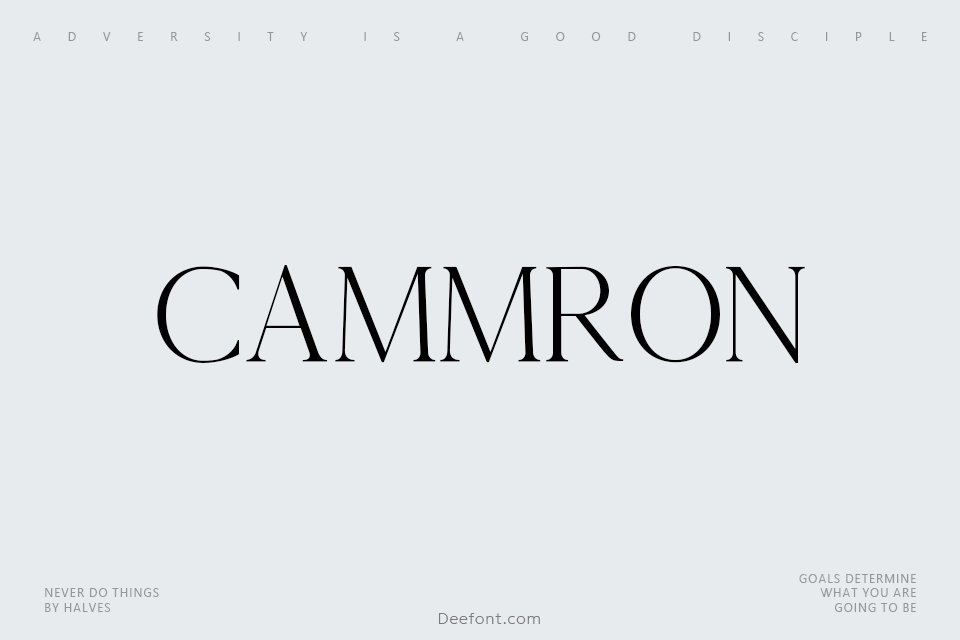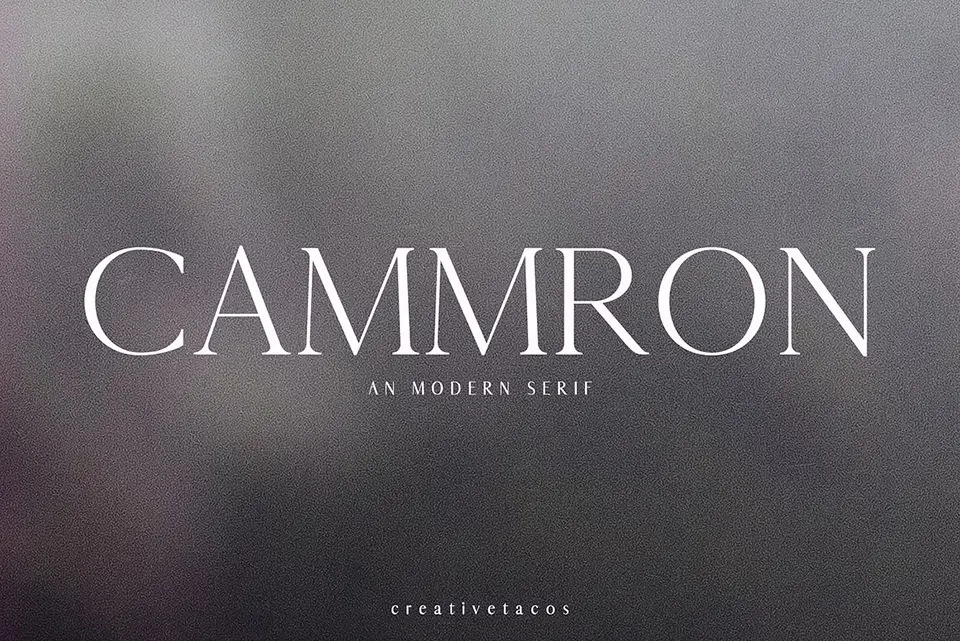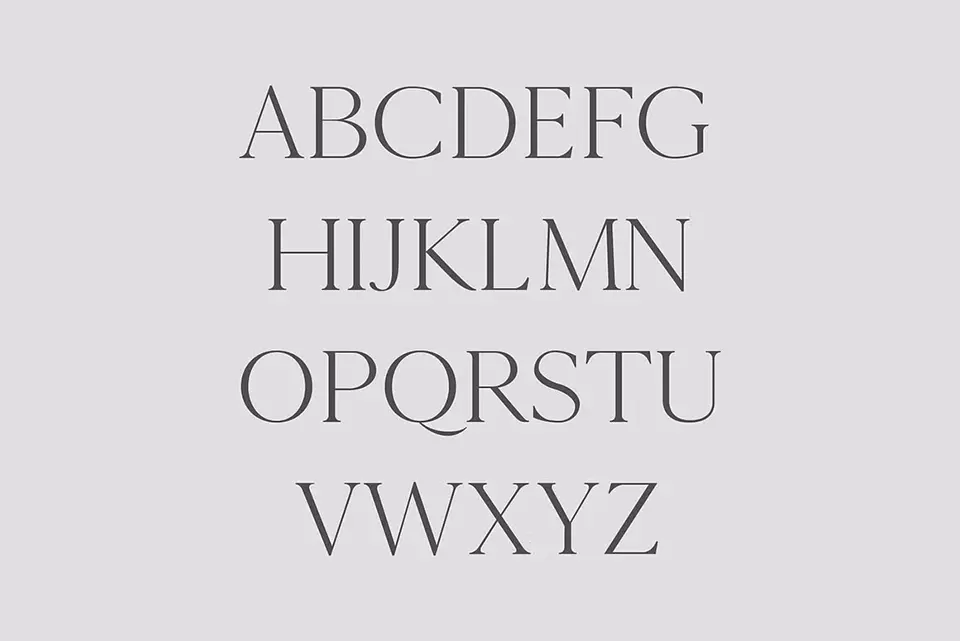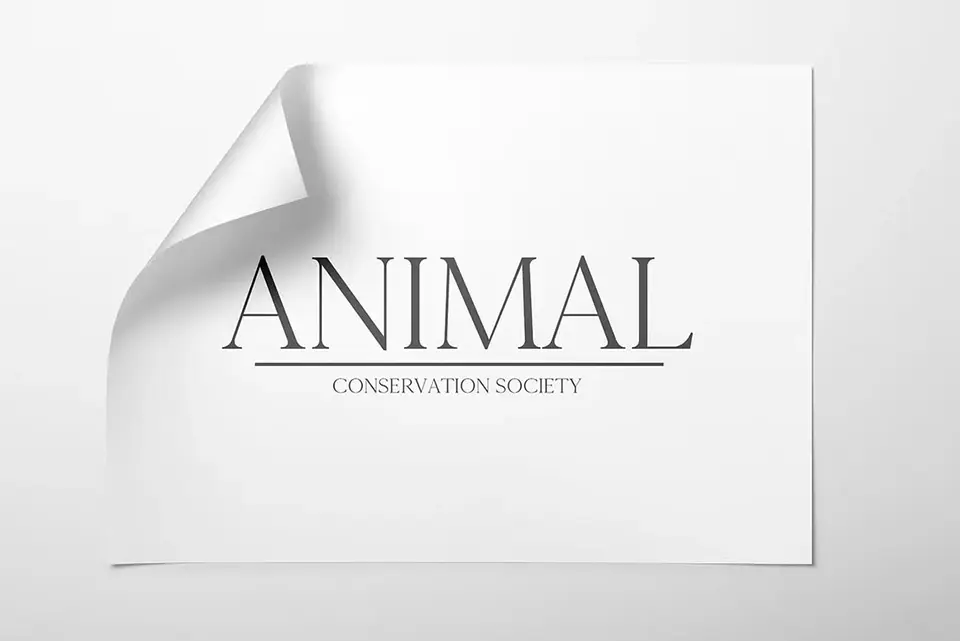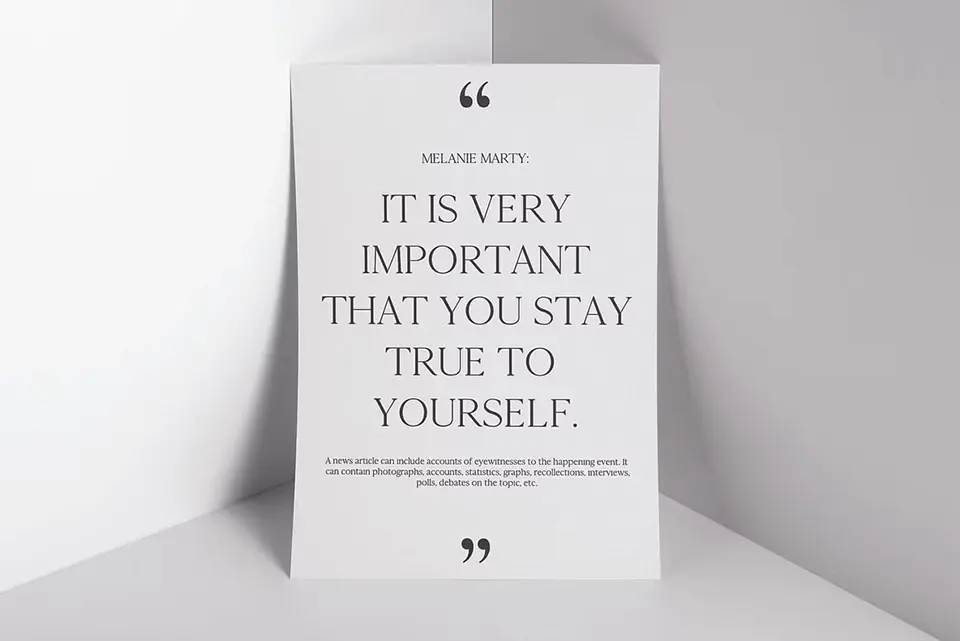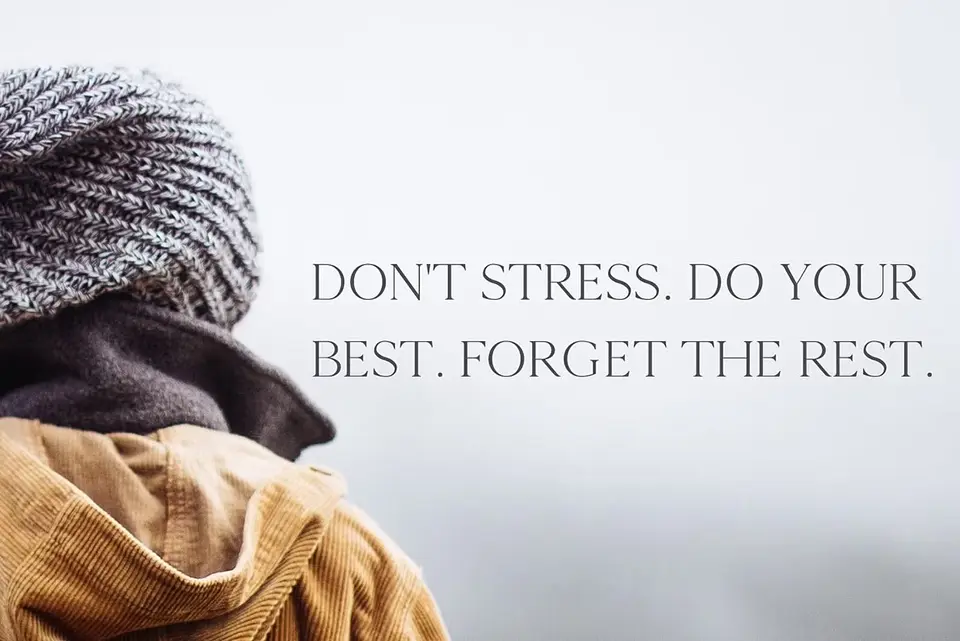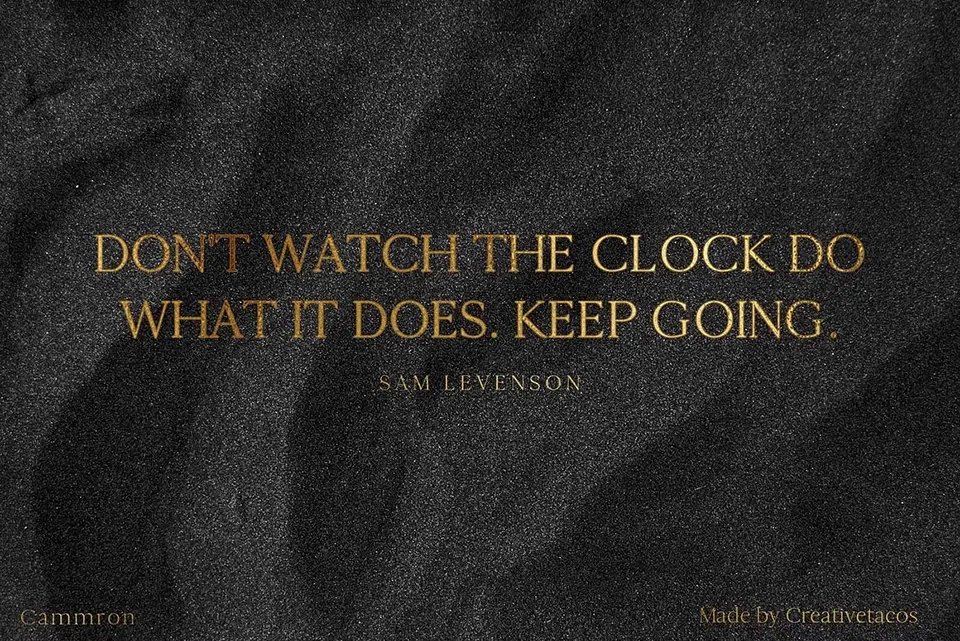
Cammron Serif Font
Cammron Serif is a modern and elegant serif font family designed by Creativetacos, perfect for headlines, titles, logos, packaging design, posters, and branding projects. This sophisticated typeface combines traditional serif characteristics with contemporary design sensibilities, making it ideal for creative professionals seeking to add elegance and distinction to their work. With comprehensive glyph support including non-English characters, it seamlessly blends with handwritten and script styles for unique typographic compositions.